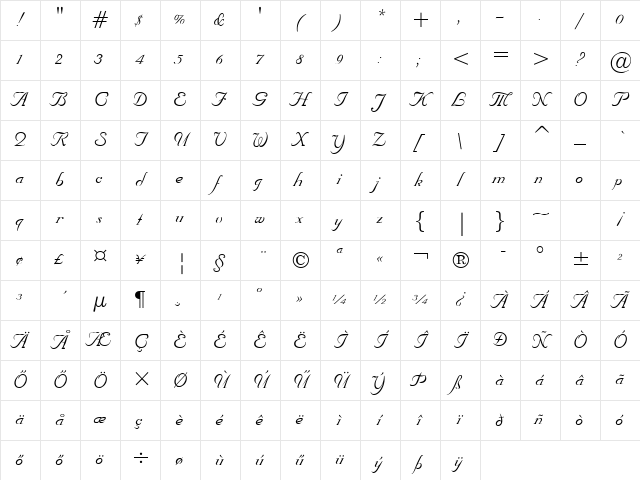
Nuptial BT Normal
Nuptial BT Family
Nuptial BT Normal
Design Context for Nuptial BT
Nuptial BT is a composed and adaptable typeface that performs quietly and consistently across a wide range of design contexts.